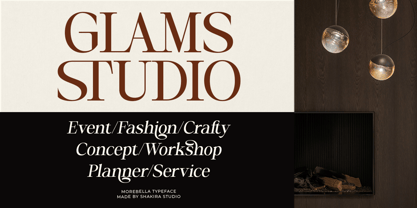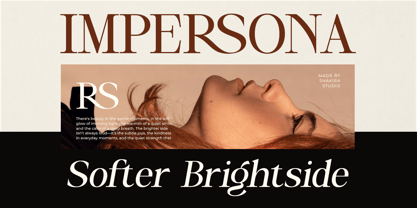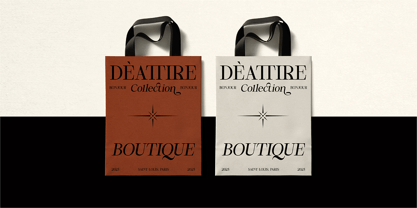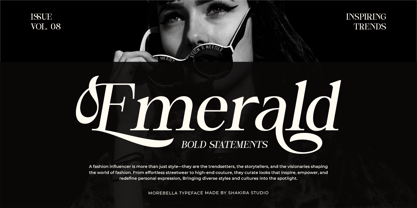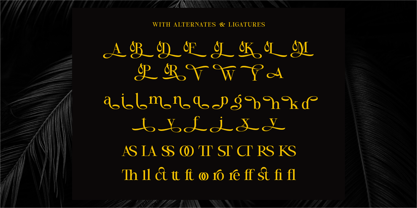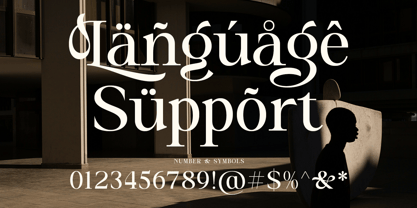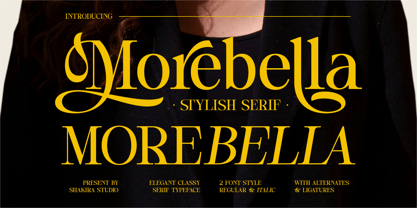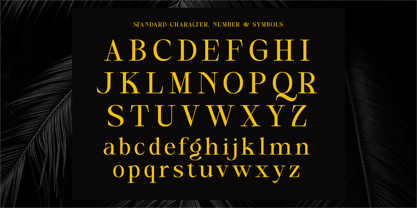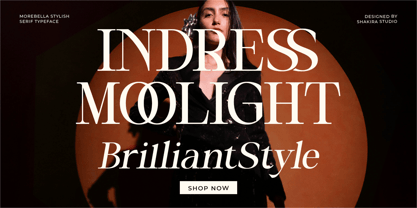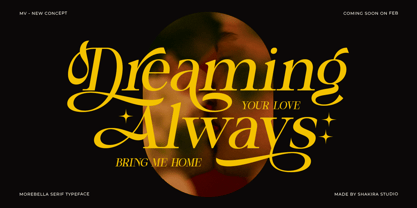
Morebella
by Shakira Studio
The Morebella Font Family was designed by Idhham Cholid Rikzano Yahya and published by Shakira Studio. Morebella contains 2 styles and family package options.
Morebella is a serif typeface that exudes elegance and luxury. With Regular and Italic variants, along with stylish alternates and ligatures, this font is perfect for high-end design projects such as branding, posters, magazines, and print materials.
Designed for graphic designers and branding professionals, Morebella offers high flexibility and precise details. Elevate your designs with Morebella, and make every project stand out with a timeless, elegant touch.
• Regular & Italic
• All Multilingual symbol
• Opentype features ( ligature, alternate )
Multilingual character supports : (Afrikaans, Albanian, Catalan, Croatian, Czech, Danish, Dutch, English, Estonian, Finnish, French, German, Hungarian, Icelandic, Italian, Lithuanian, Maltese, Norwegian, Polish, Portuguese, Slovenian, Spanish, Swedish, Turkish, Zulu)